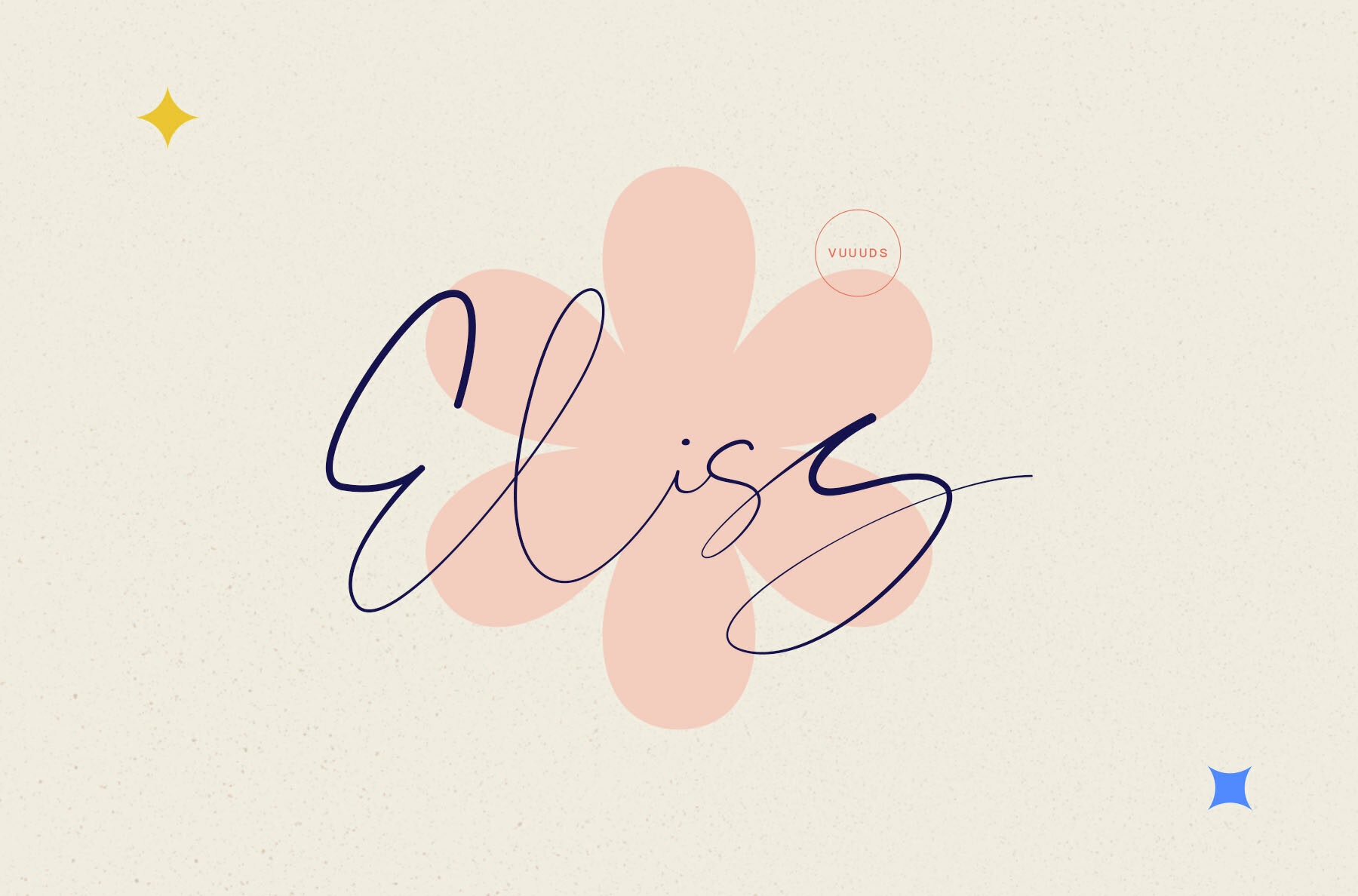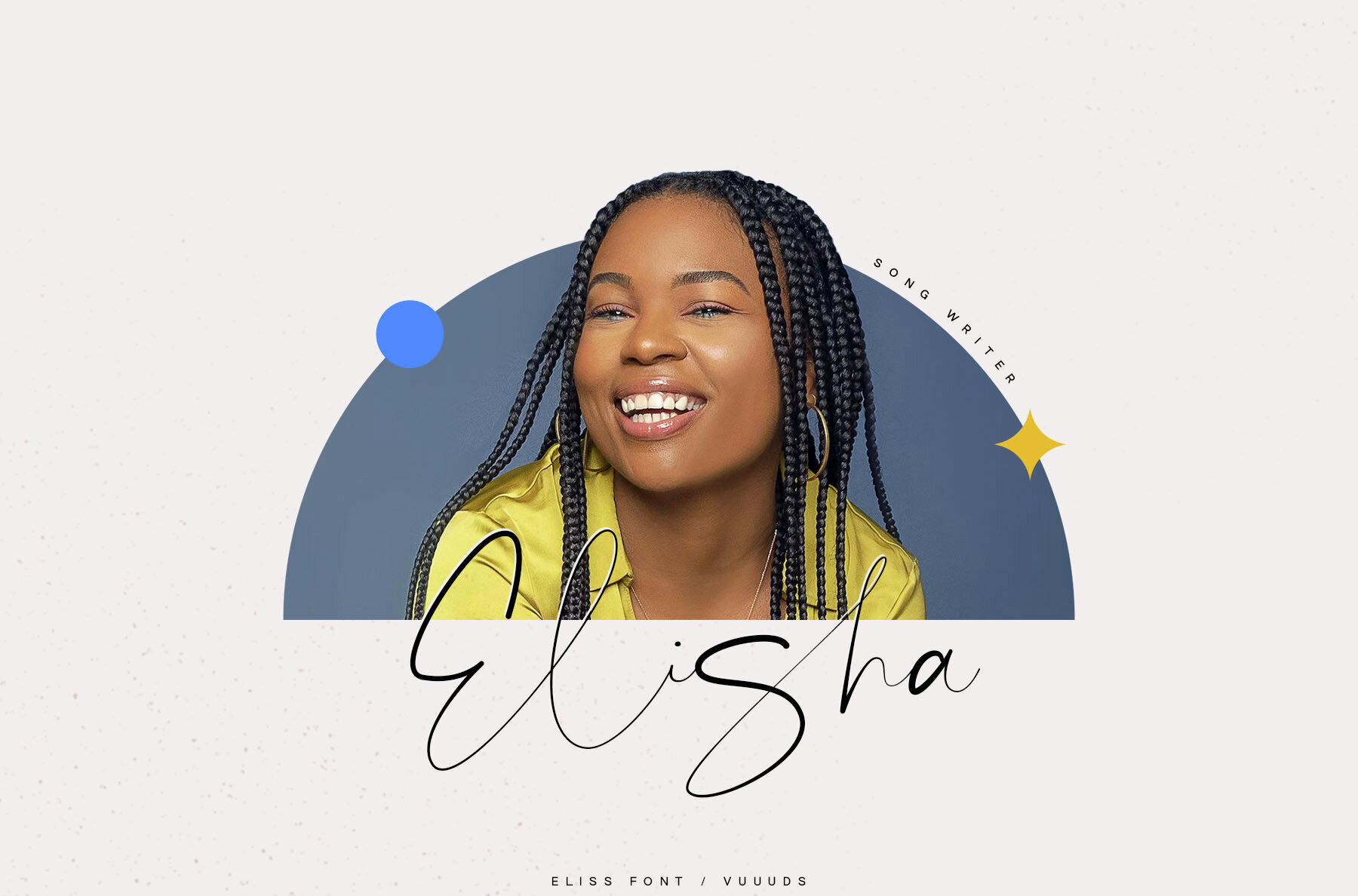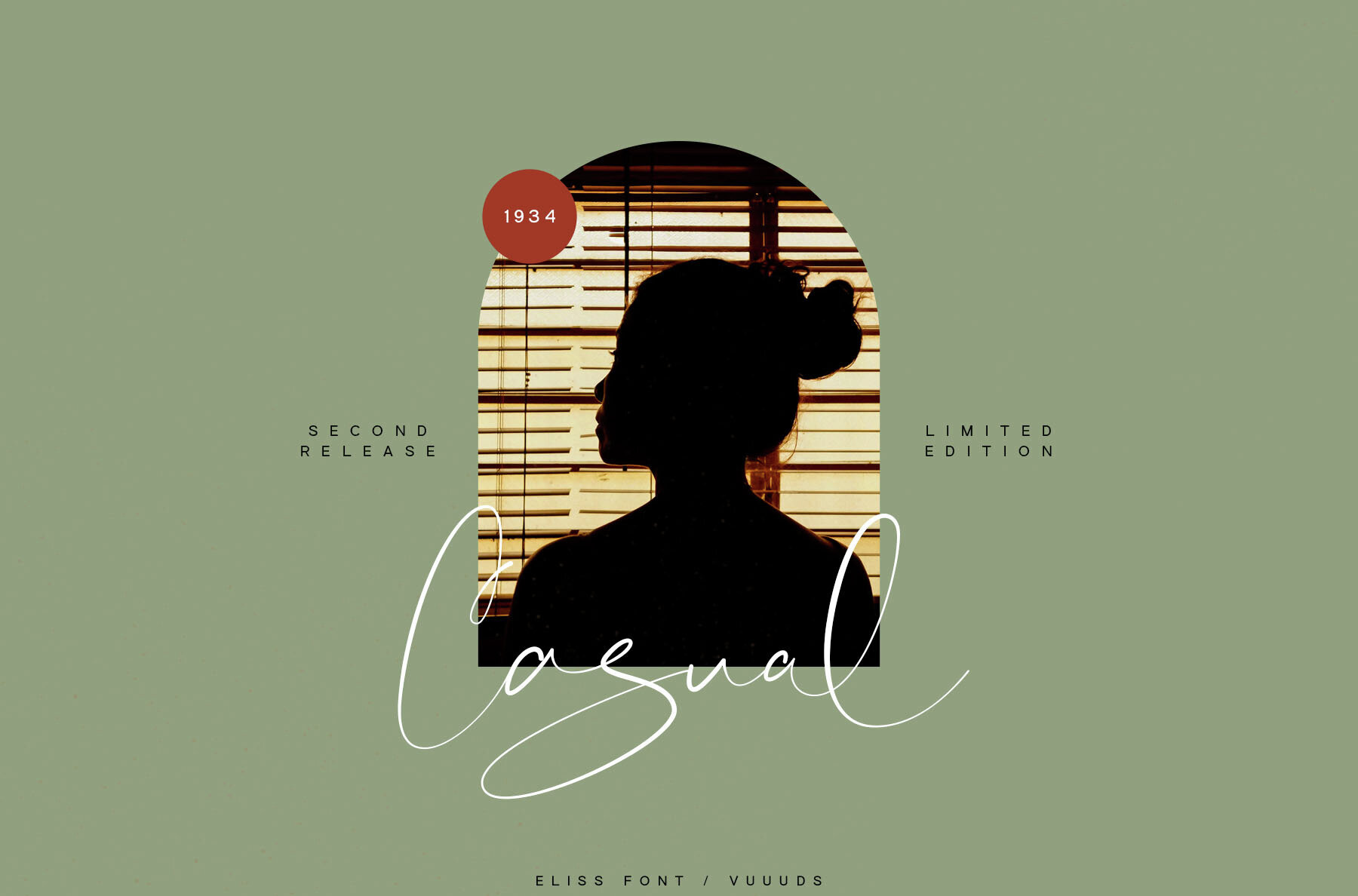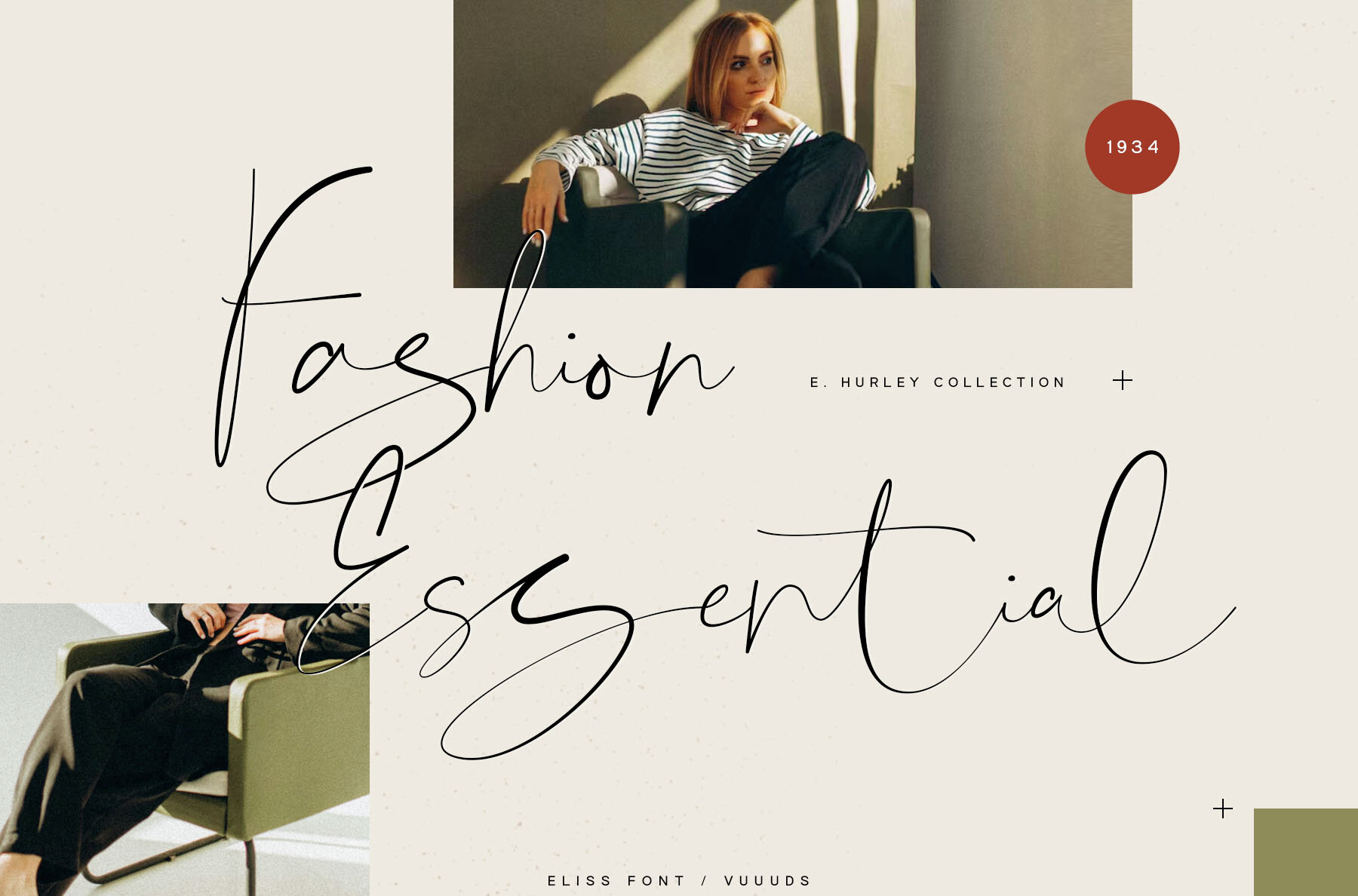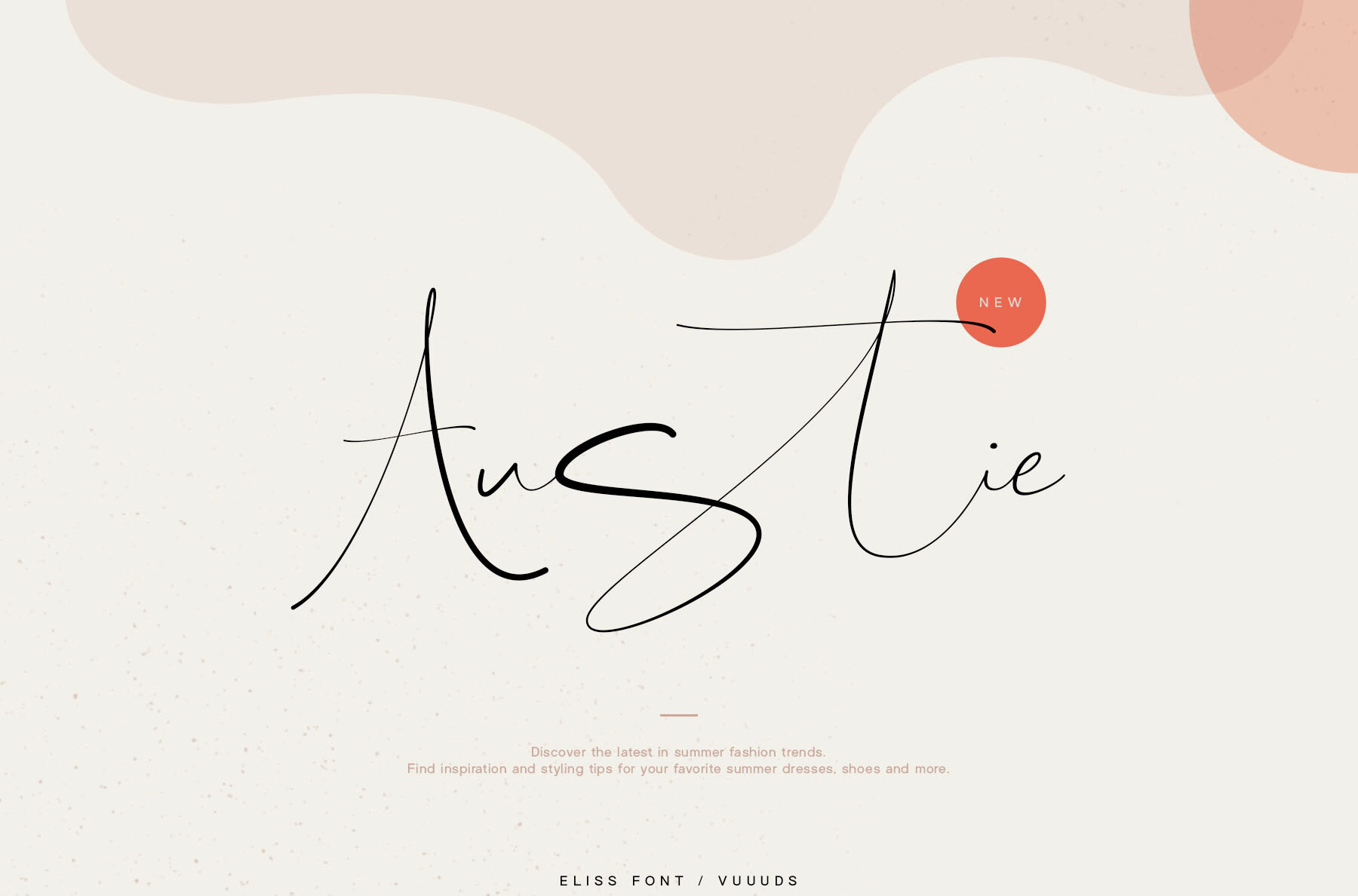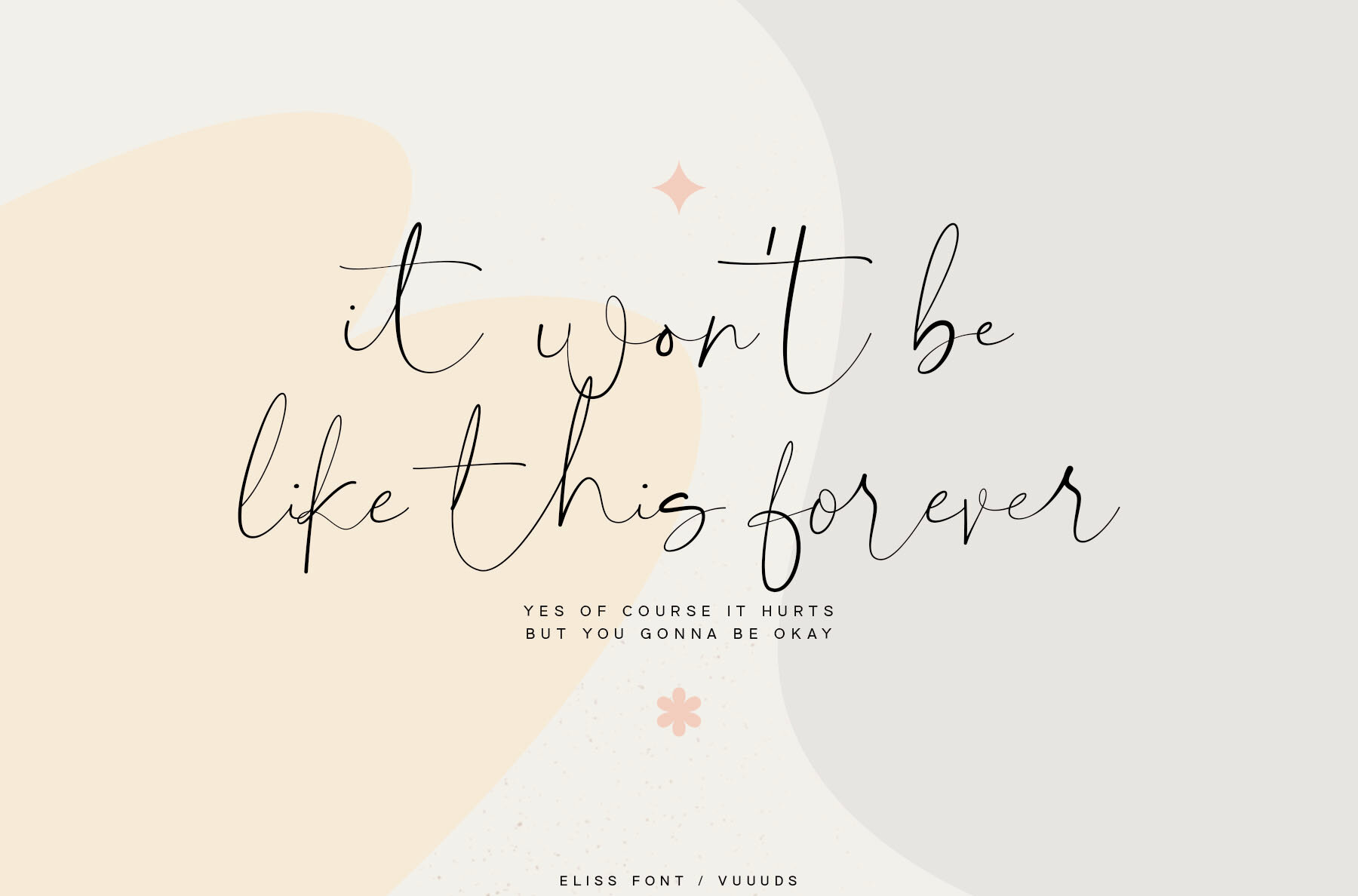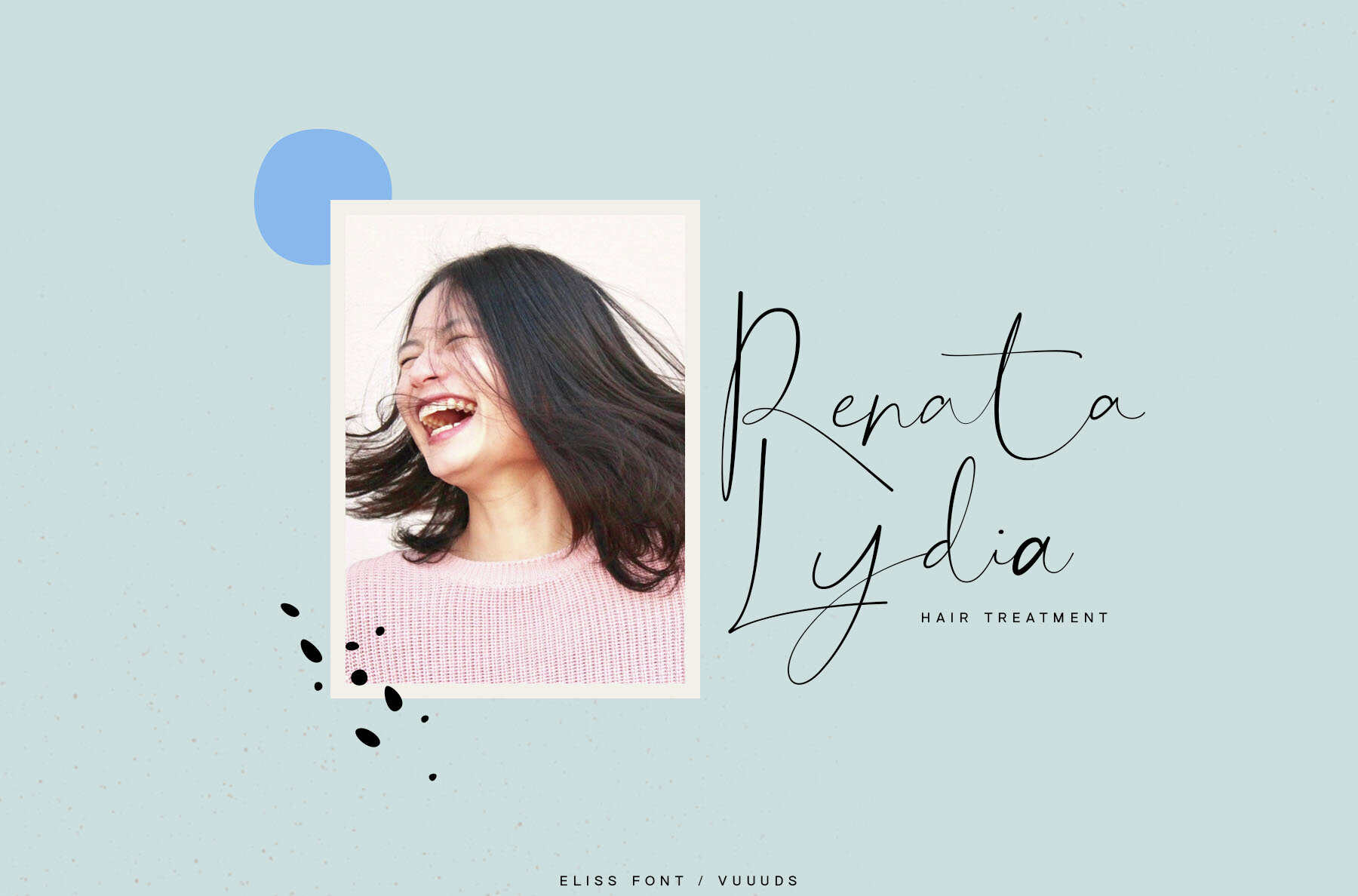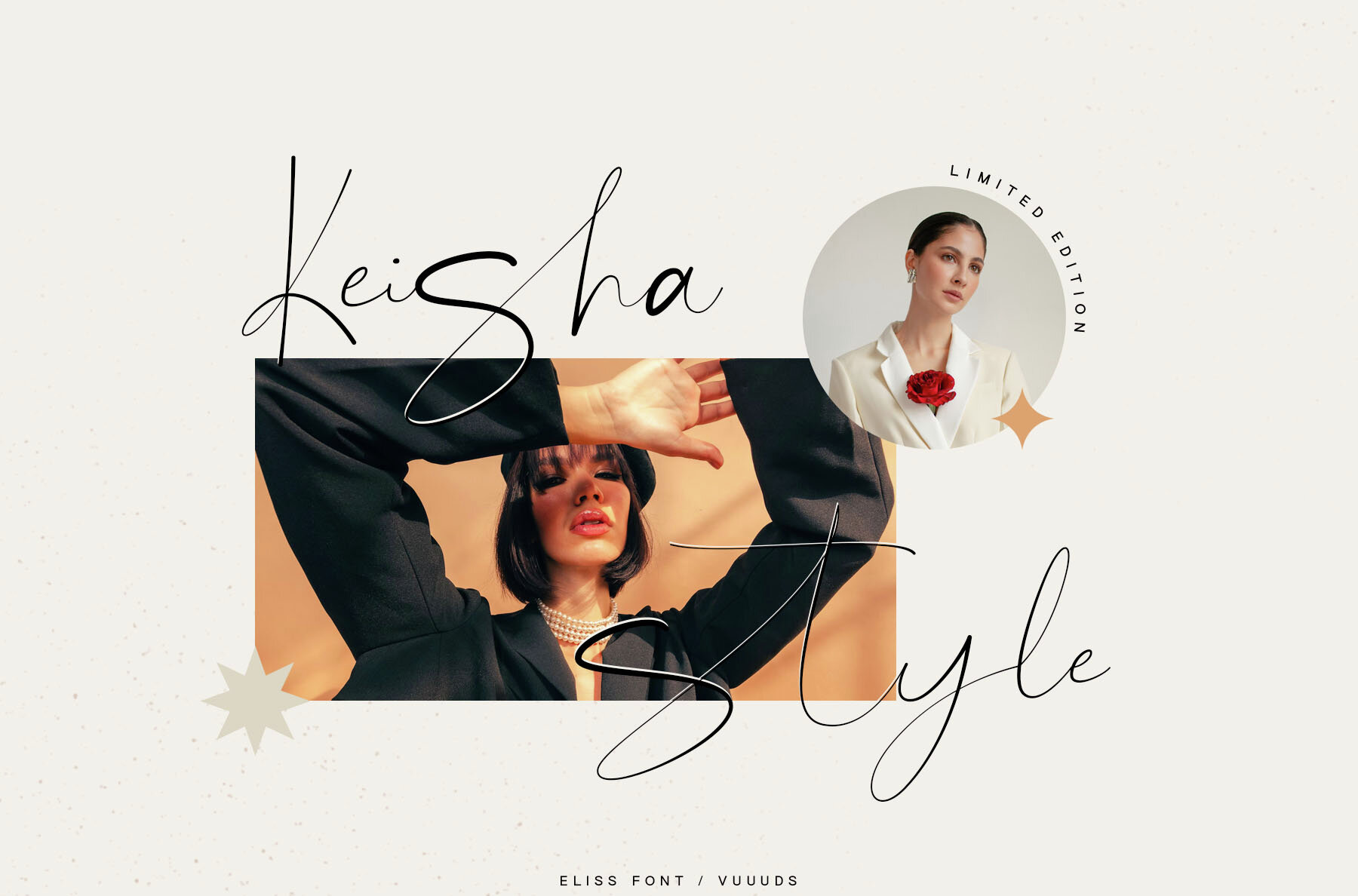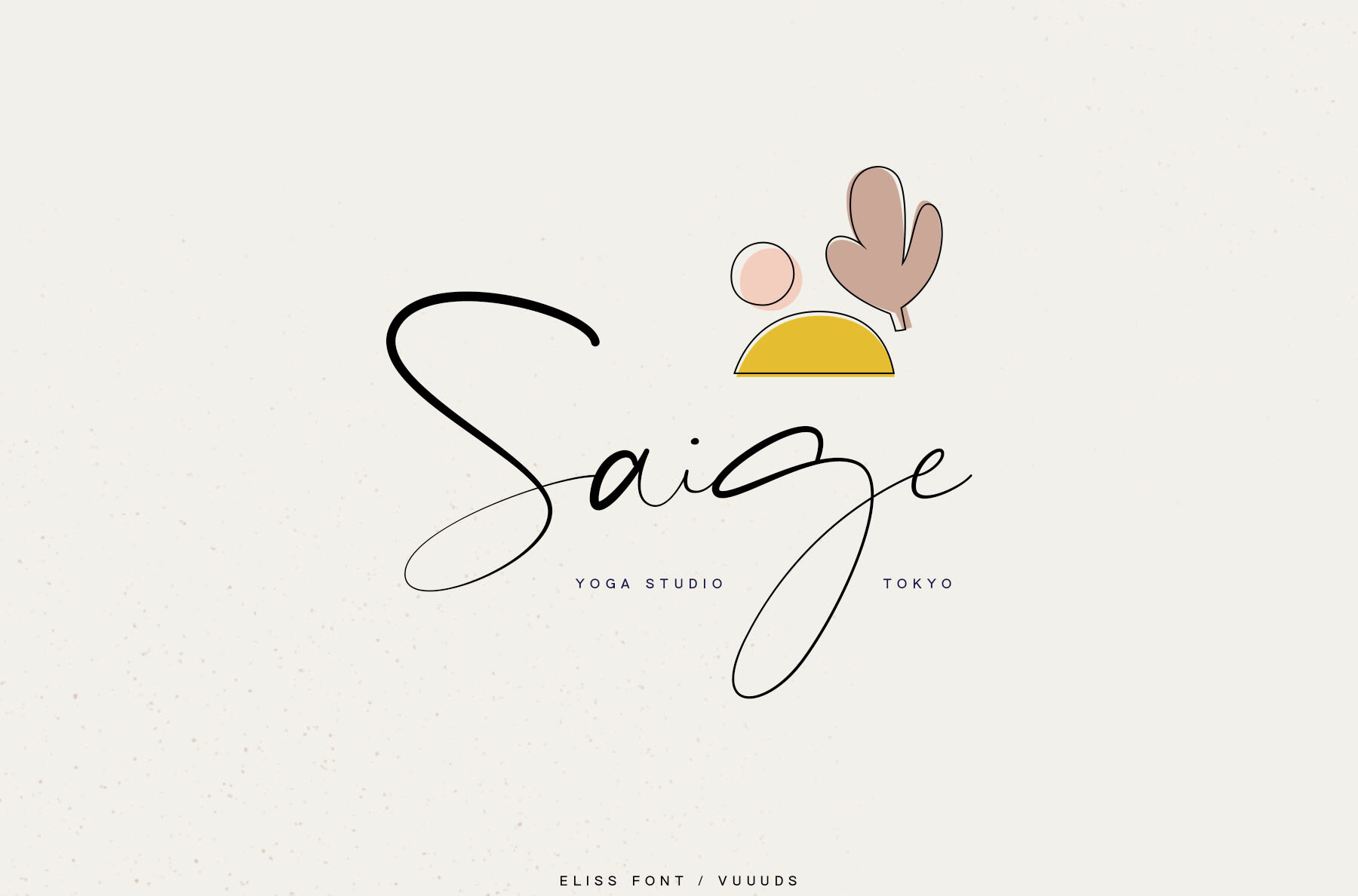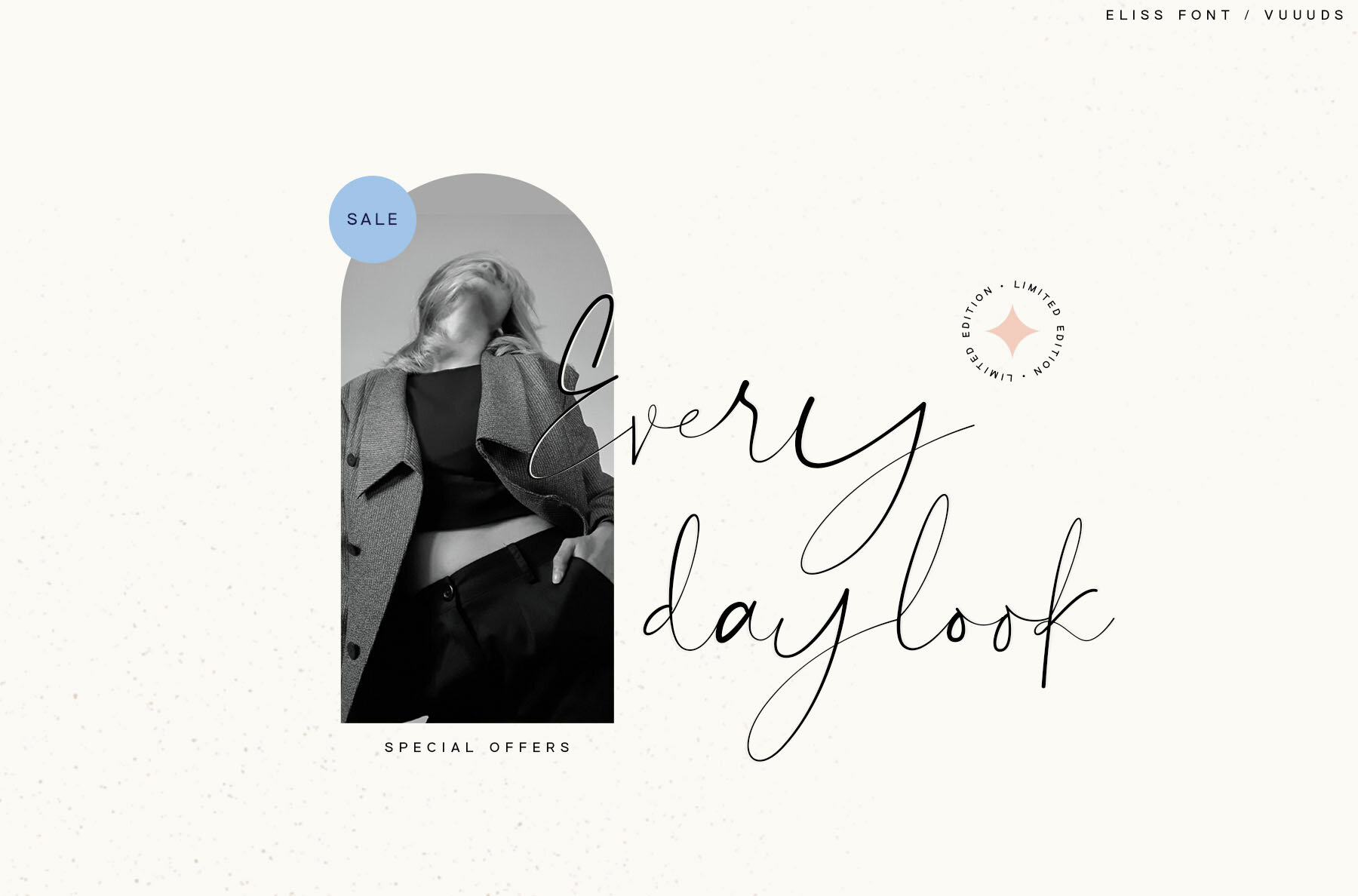
Eliss Font
Eliss Regular
Eliss is a classic script font where each letter is uniquely crafted to add a touch of elegance to your designs. Its distinctive style makes it ideal for various creative applications.Eliss Script: A Classic and Elegant Typeface
Unique Features